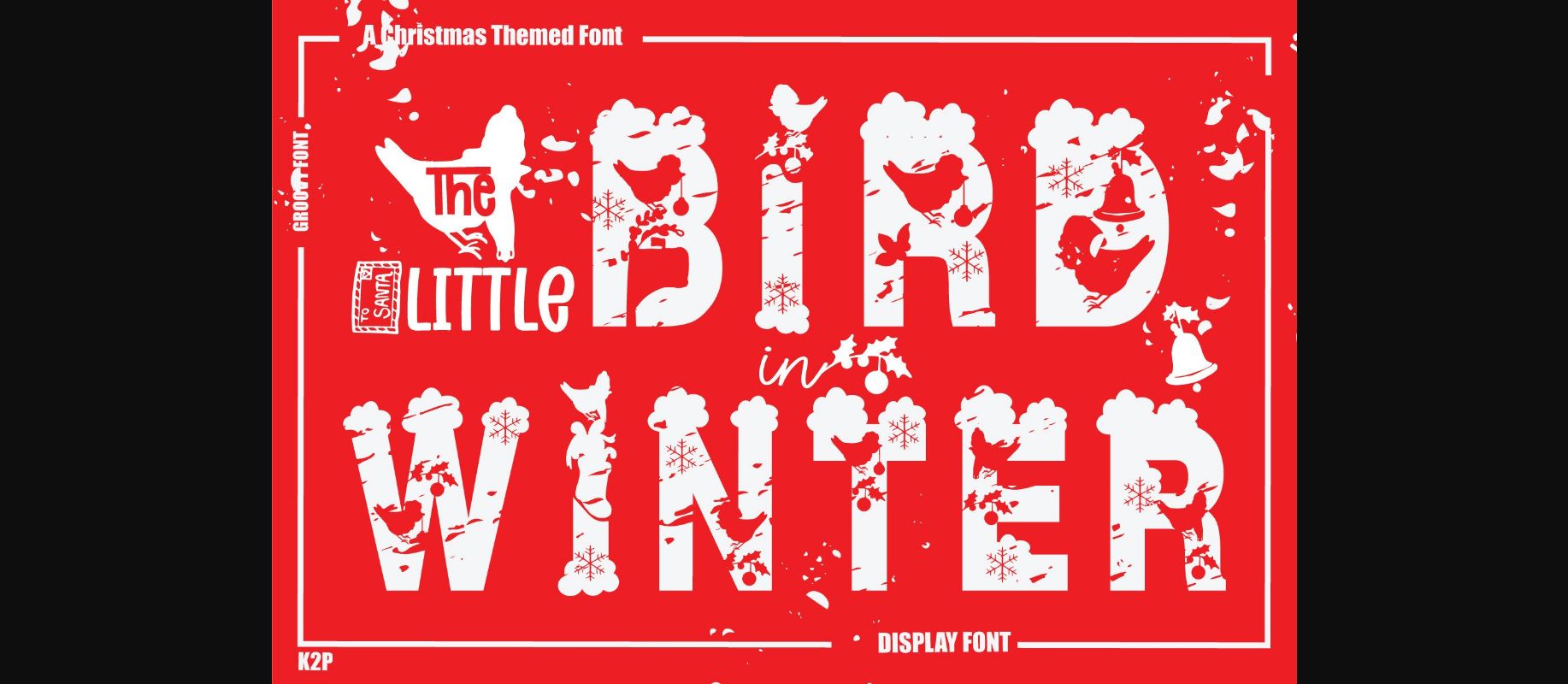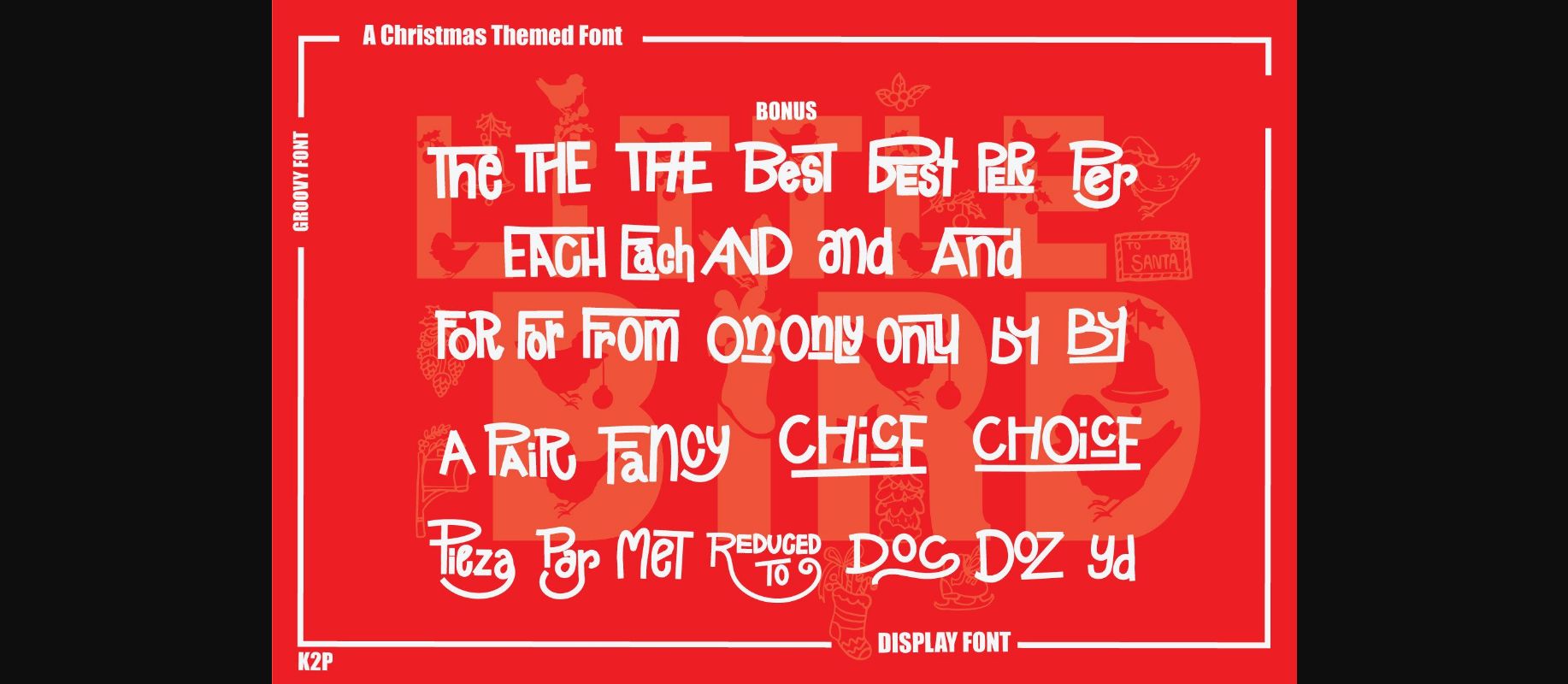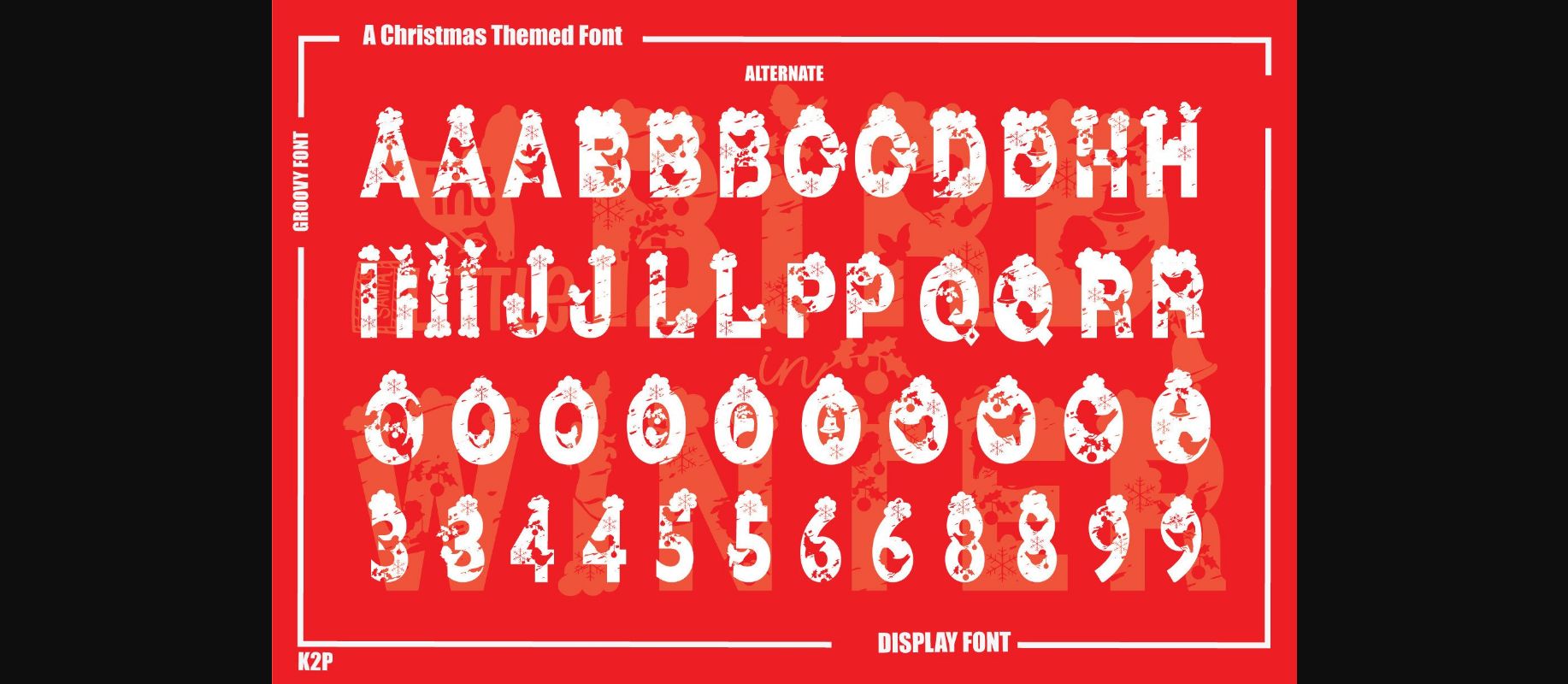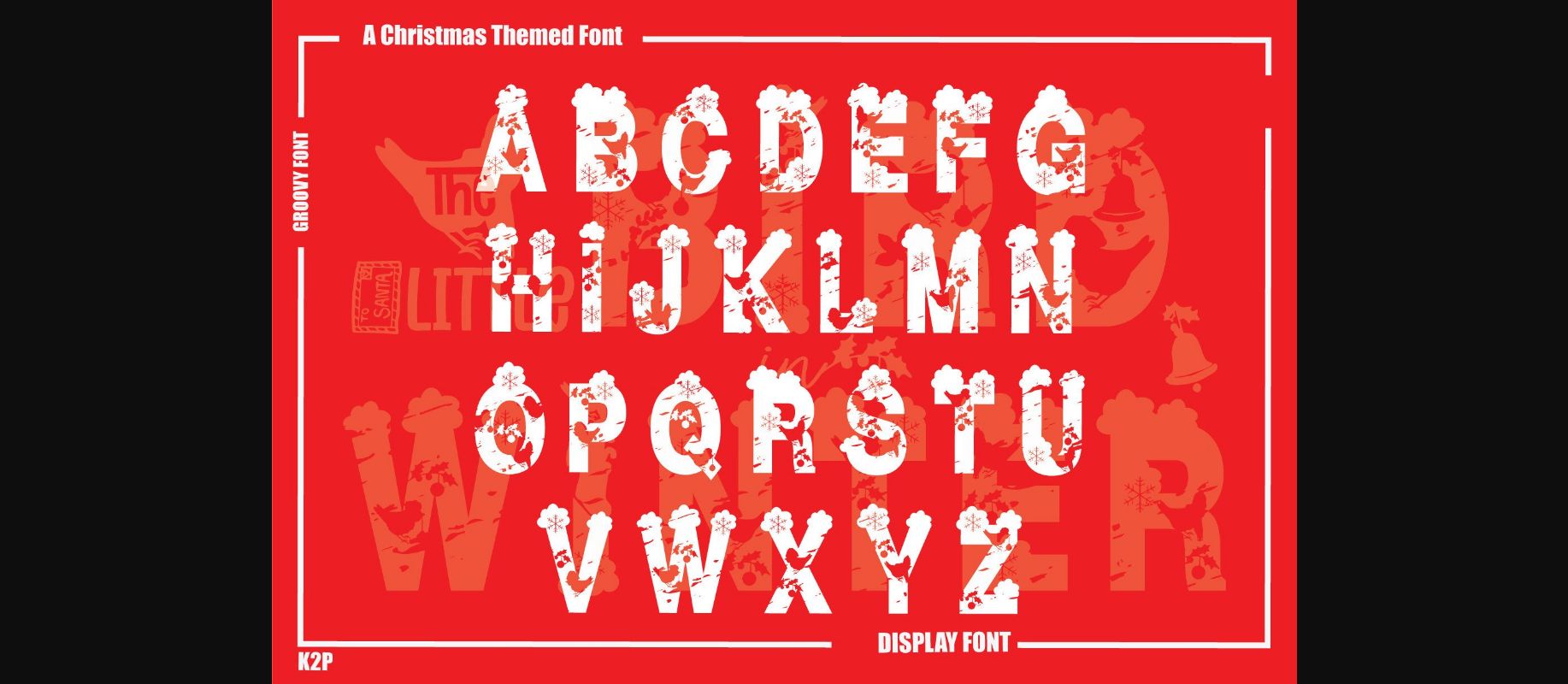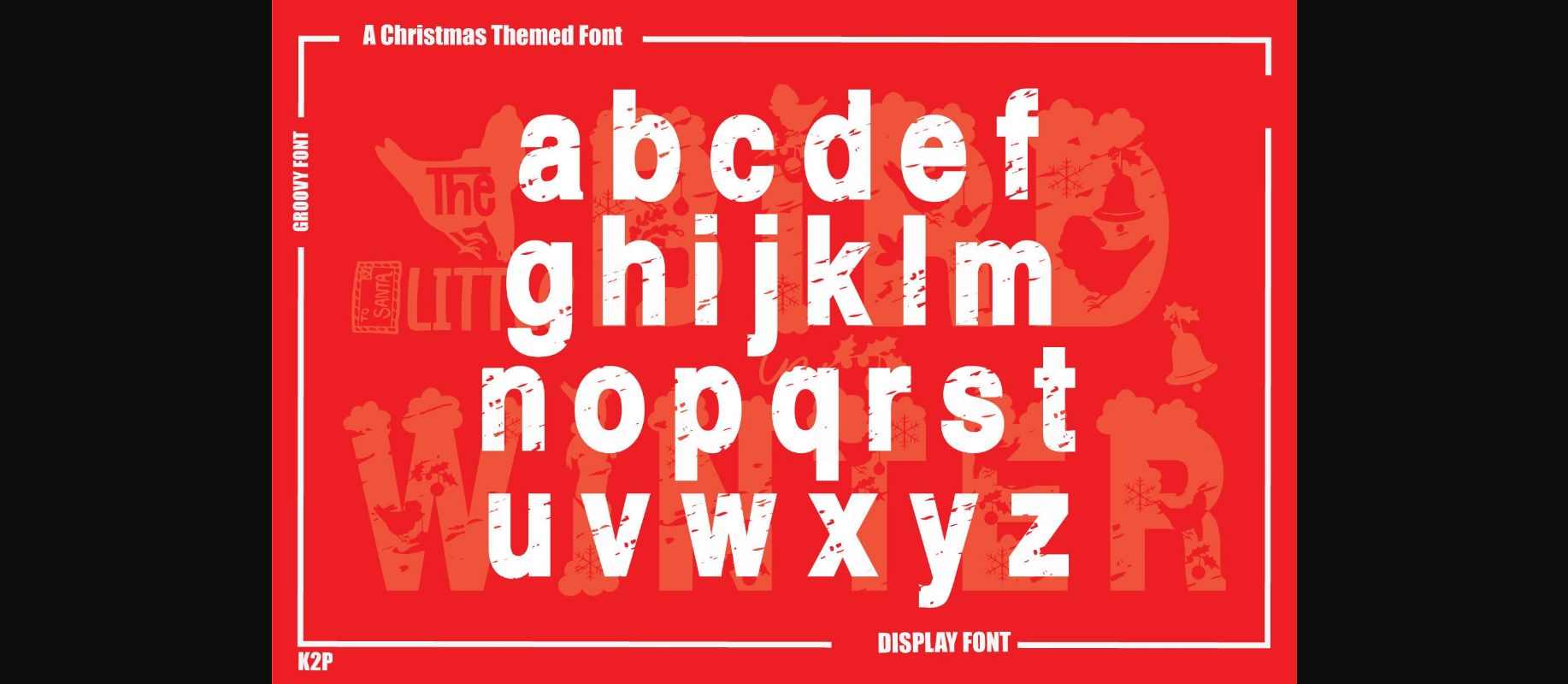
Little Bird in Winter Font
About Little Bird in Winter Font
Little Bird in Winter is a fun, festive, and incredibly unique decorative font. It can be used for various design ideas, particularly those related to the Christmas Holiday.